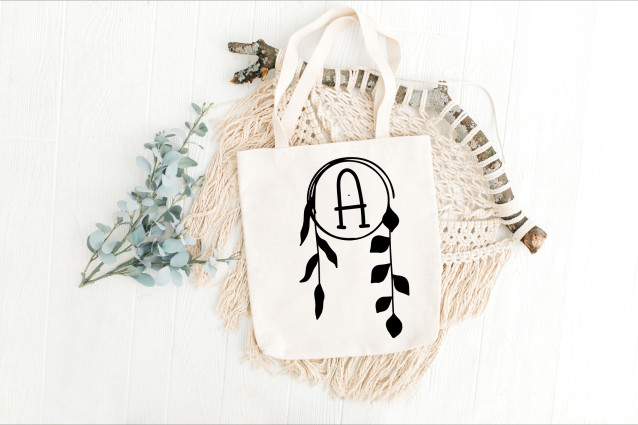
Wild Leaf Boho Monogram Font
Wild Leaf Boho Monogram Font is a free-spirited monogram font featuring handcrafted serif letterforms entwined with organic, wild leaf illustrations. Perfect for bohemian designs, personalized gifts, wedding stationery, and Cricut crafts, this font brings earthy charm and artisanal elegance to every monogram.